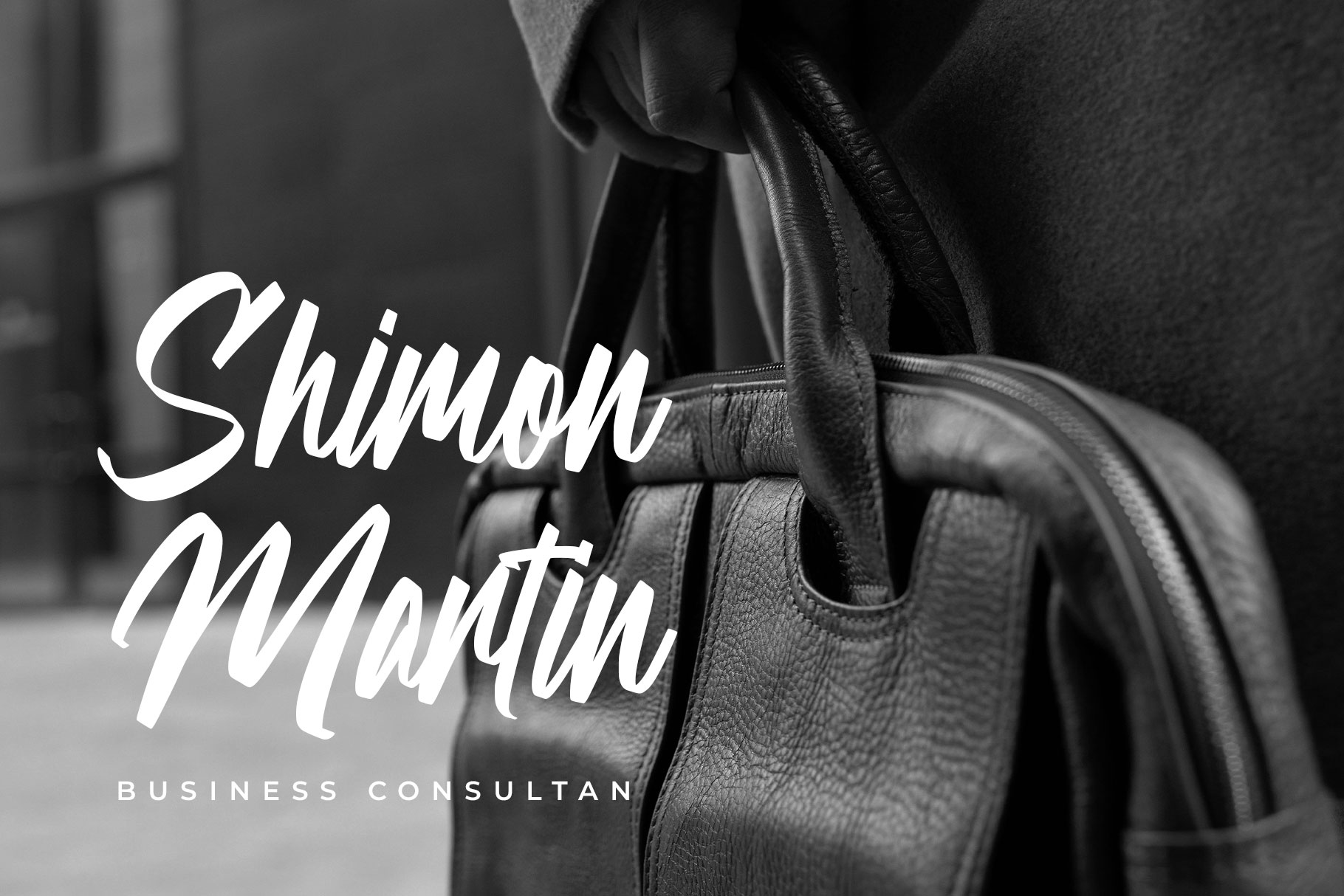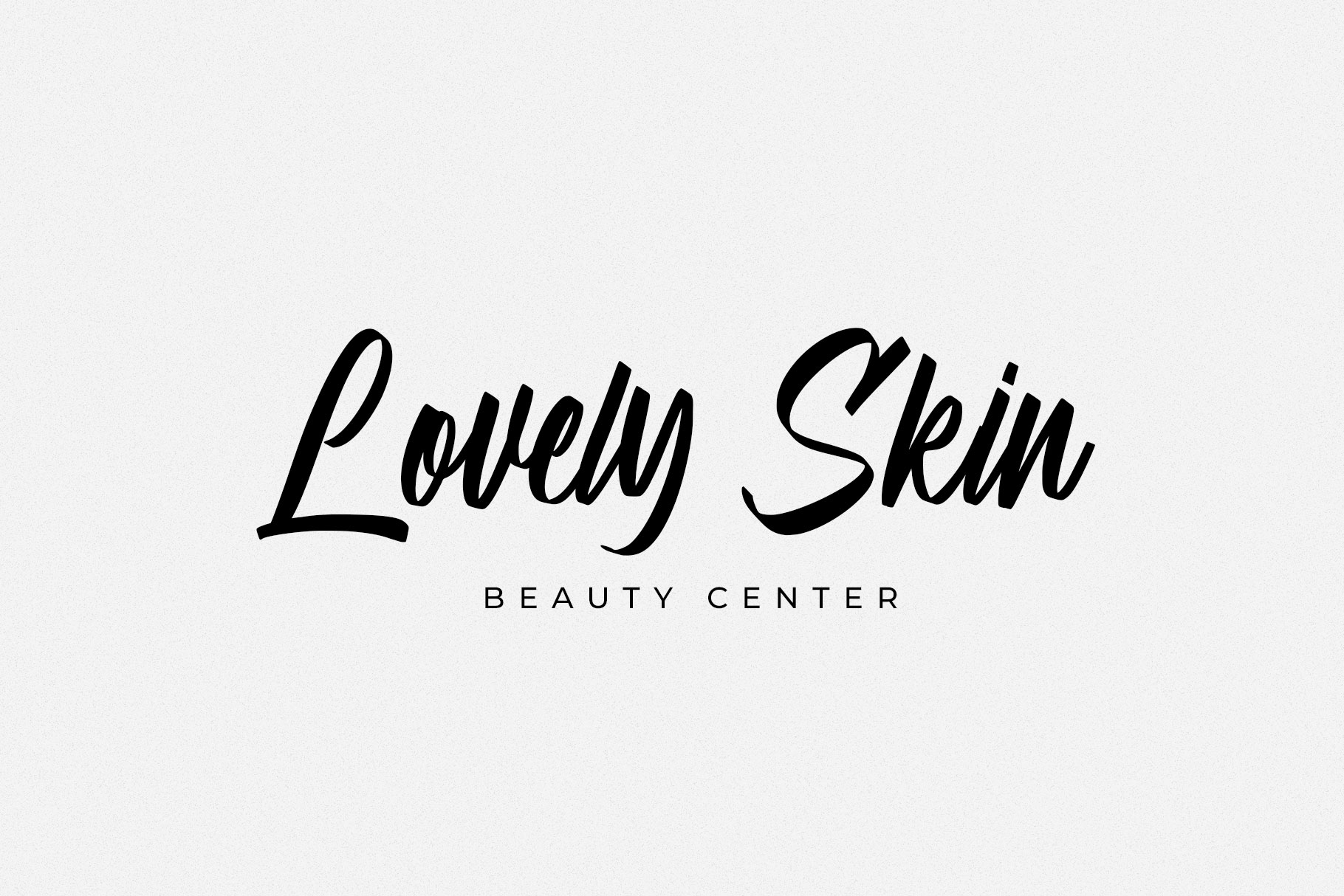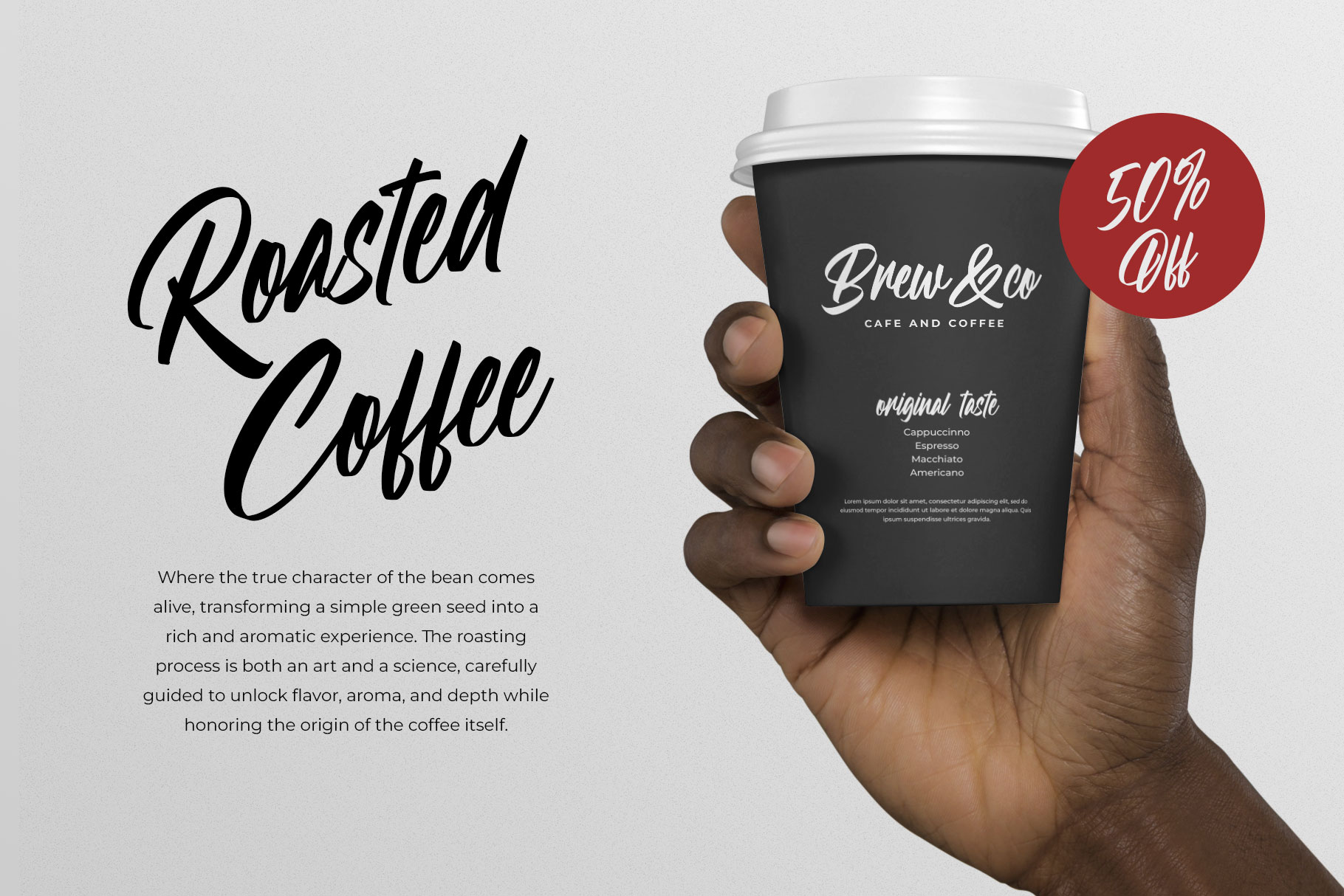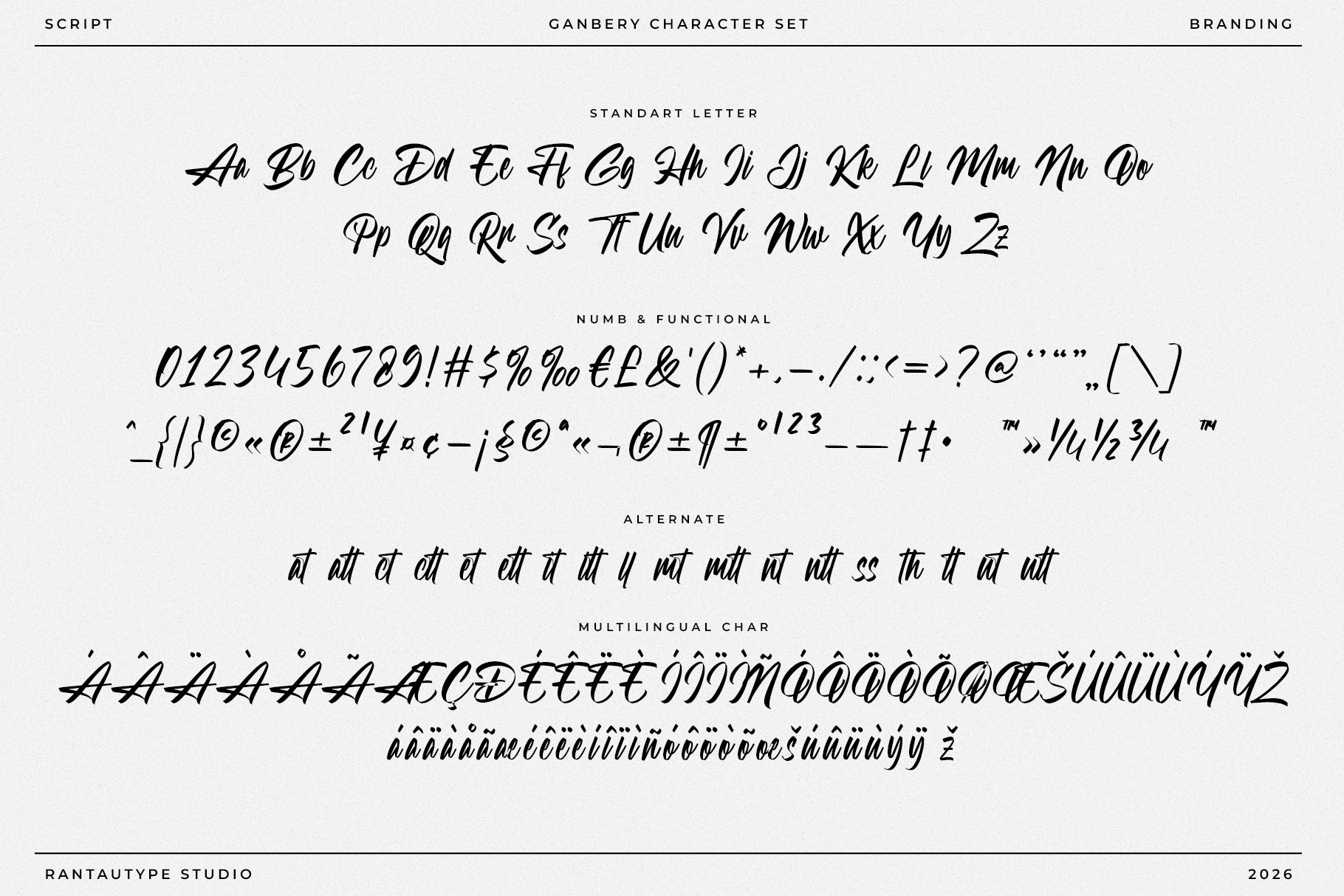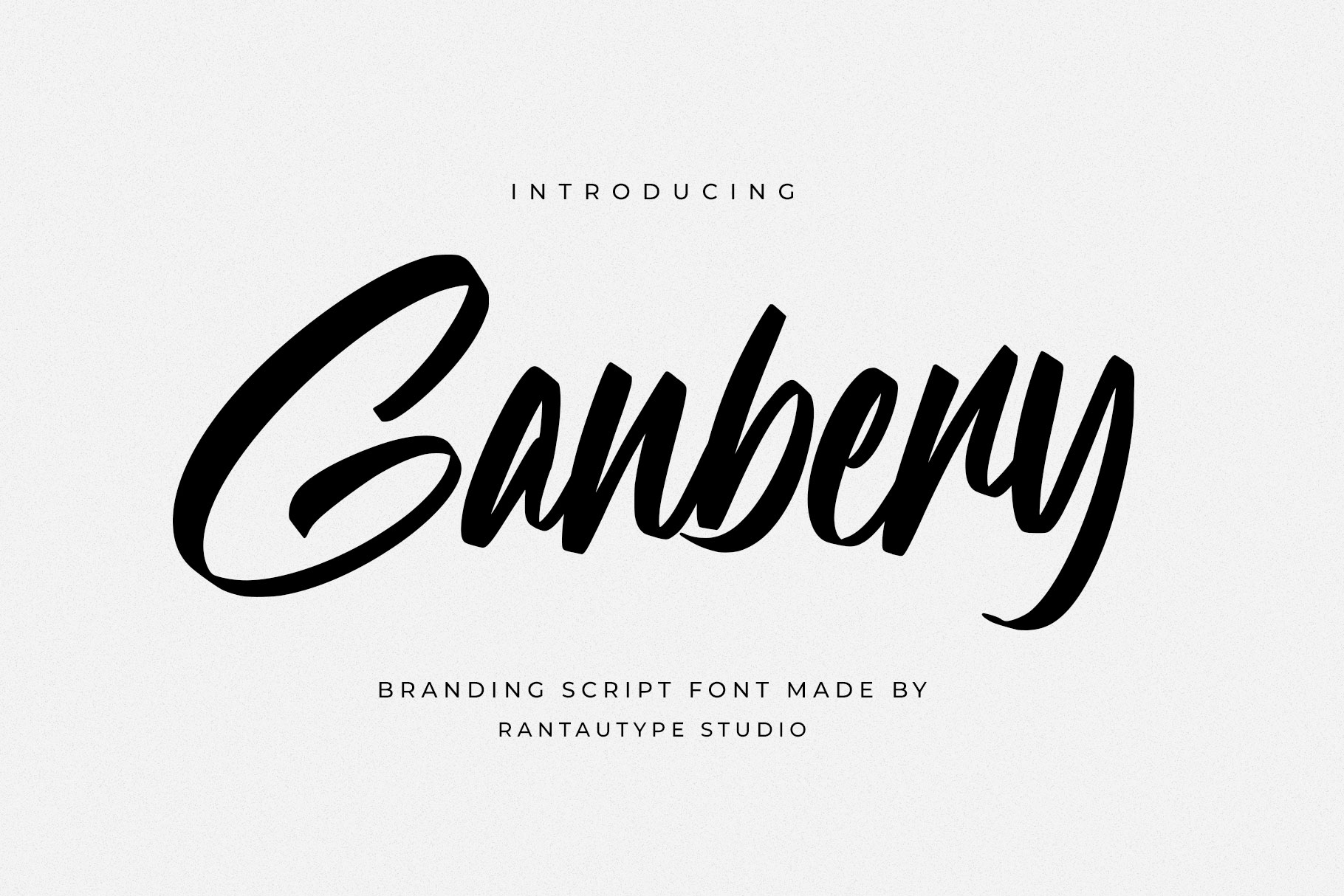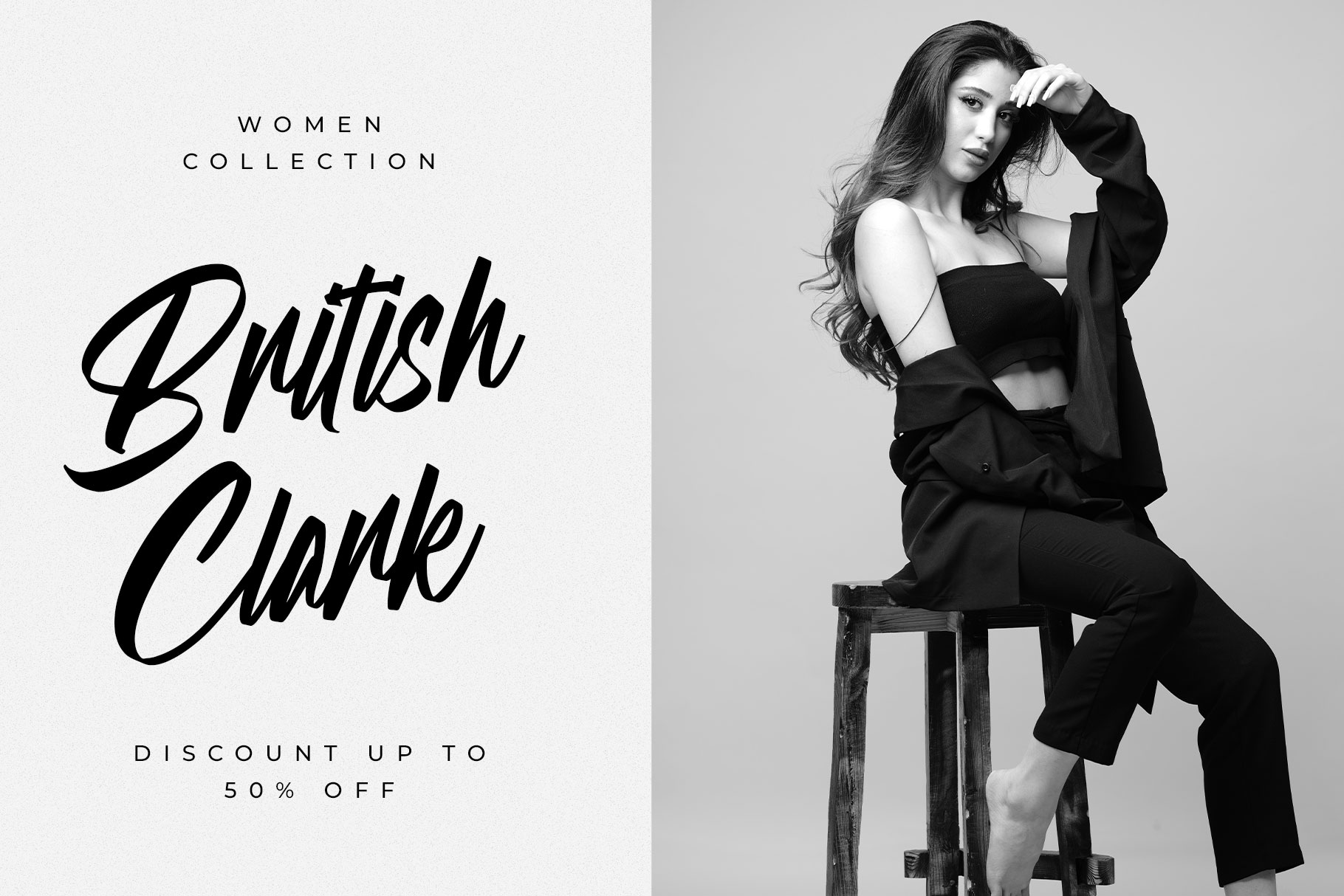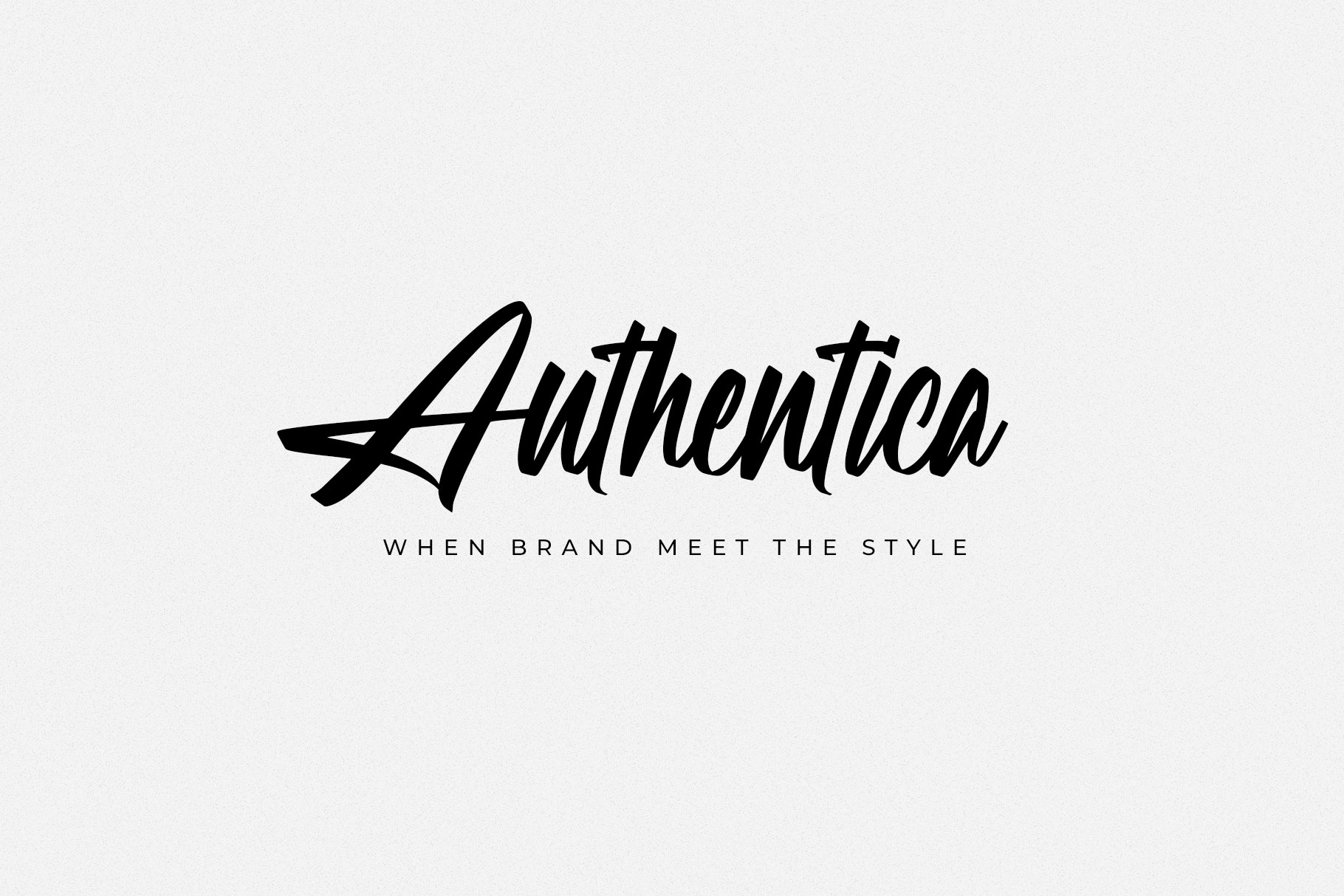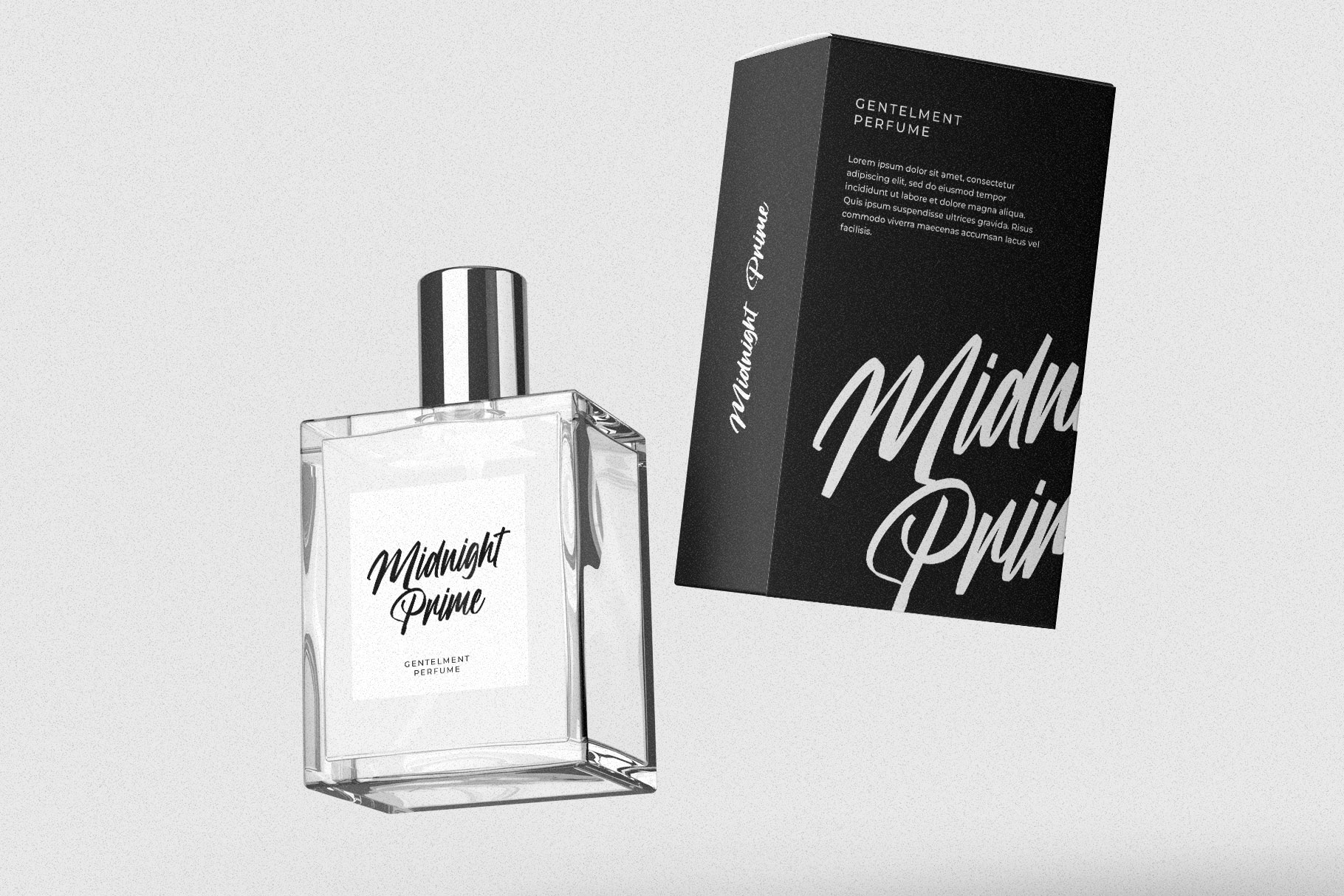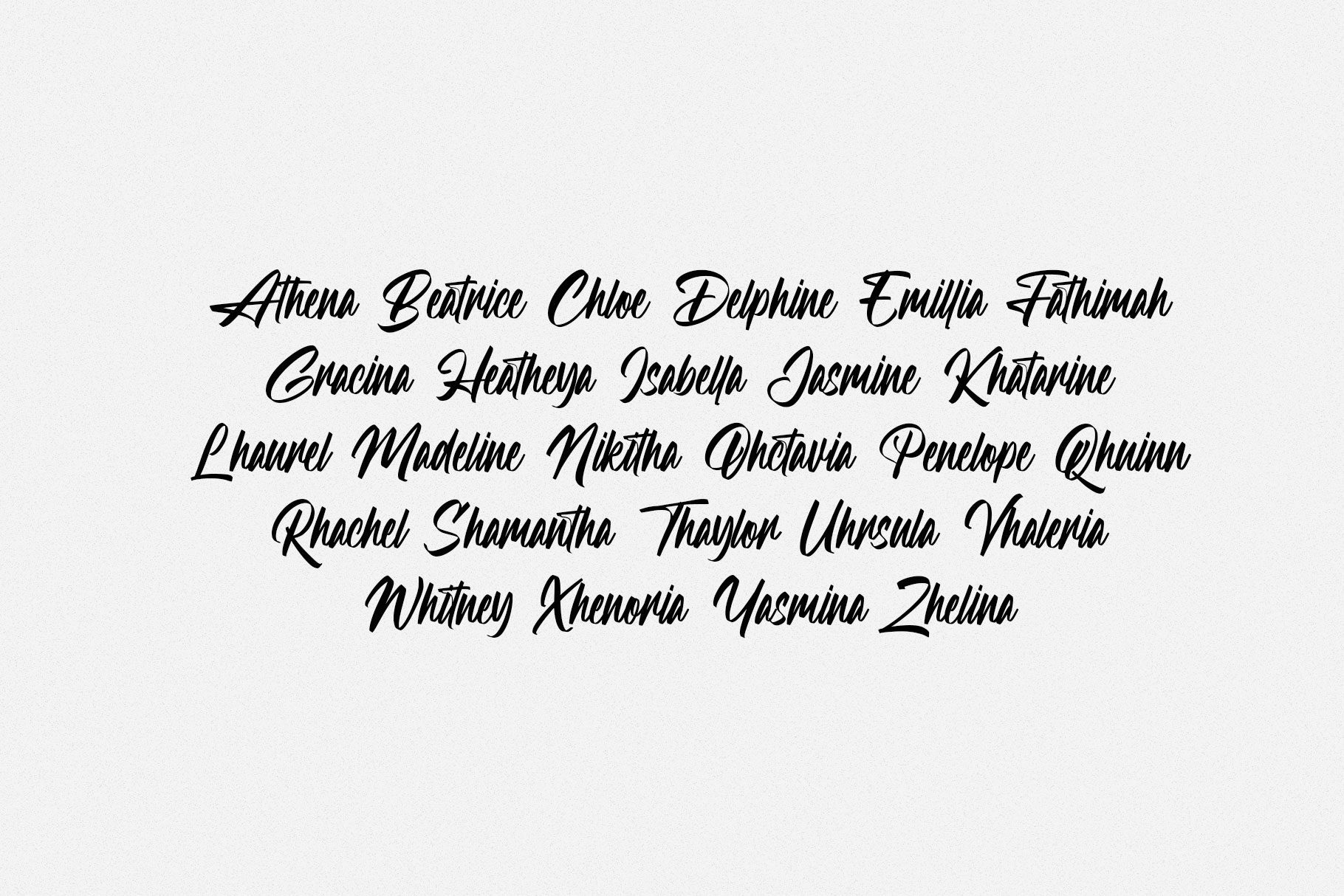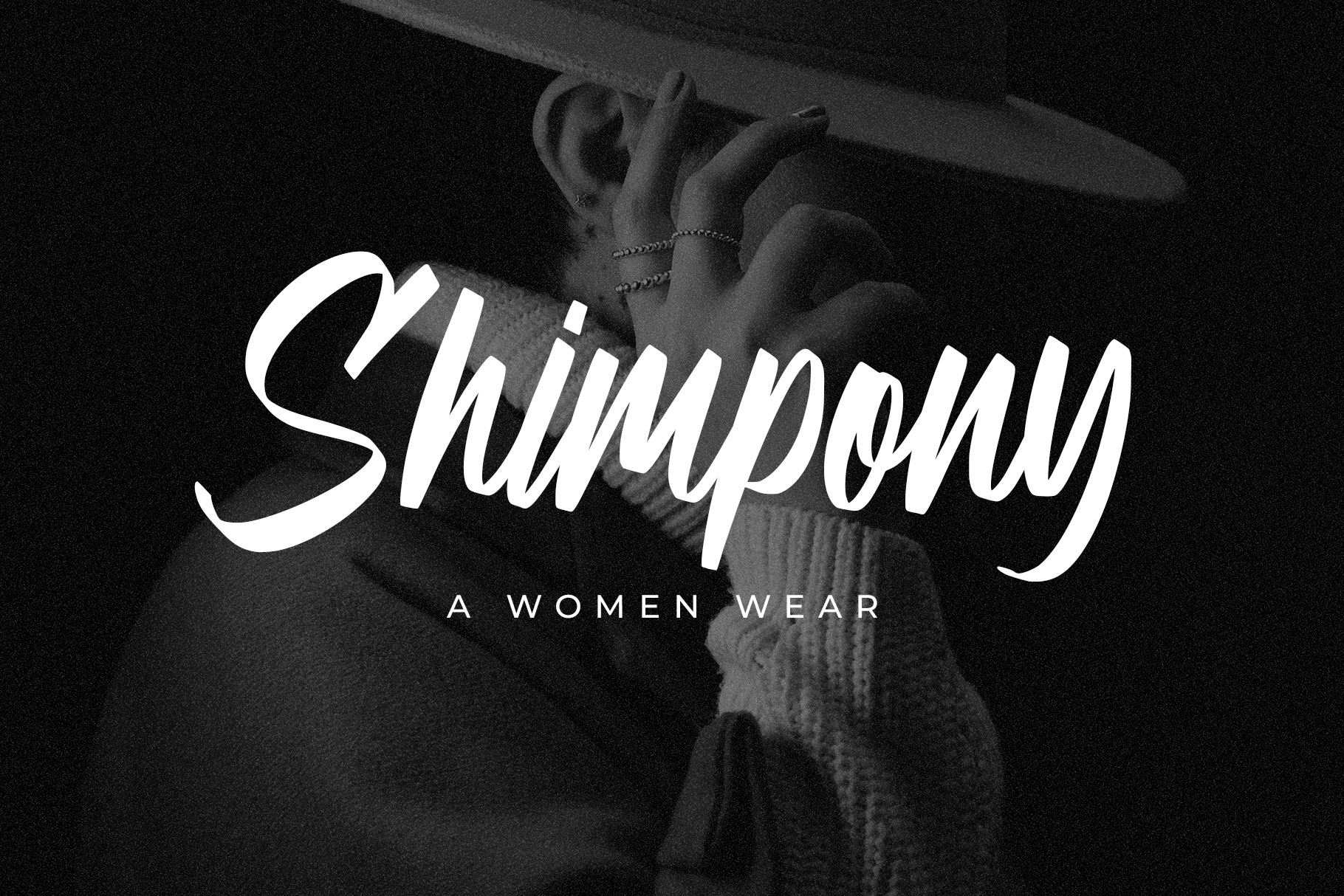
Ganbery Branding Script Font
Ganbery is modern script font with authentic style brand. Ganbery is a perfectly choice for any creative endeavor, creating, modern, lifestyle design such as logotype, title, cover, branding, invitations, wedding designs, display and magazine, social media posts, advertisements, printed quotes, product packaging, corporate brand, product designs, labels, photography, watermarks, special events and any other project with modern touch.